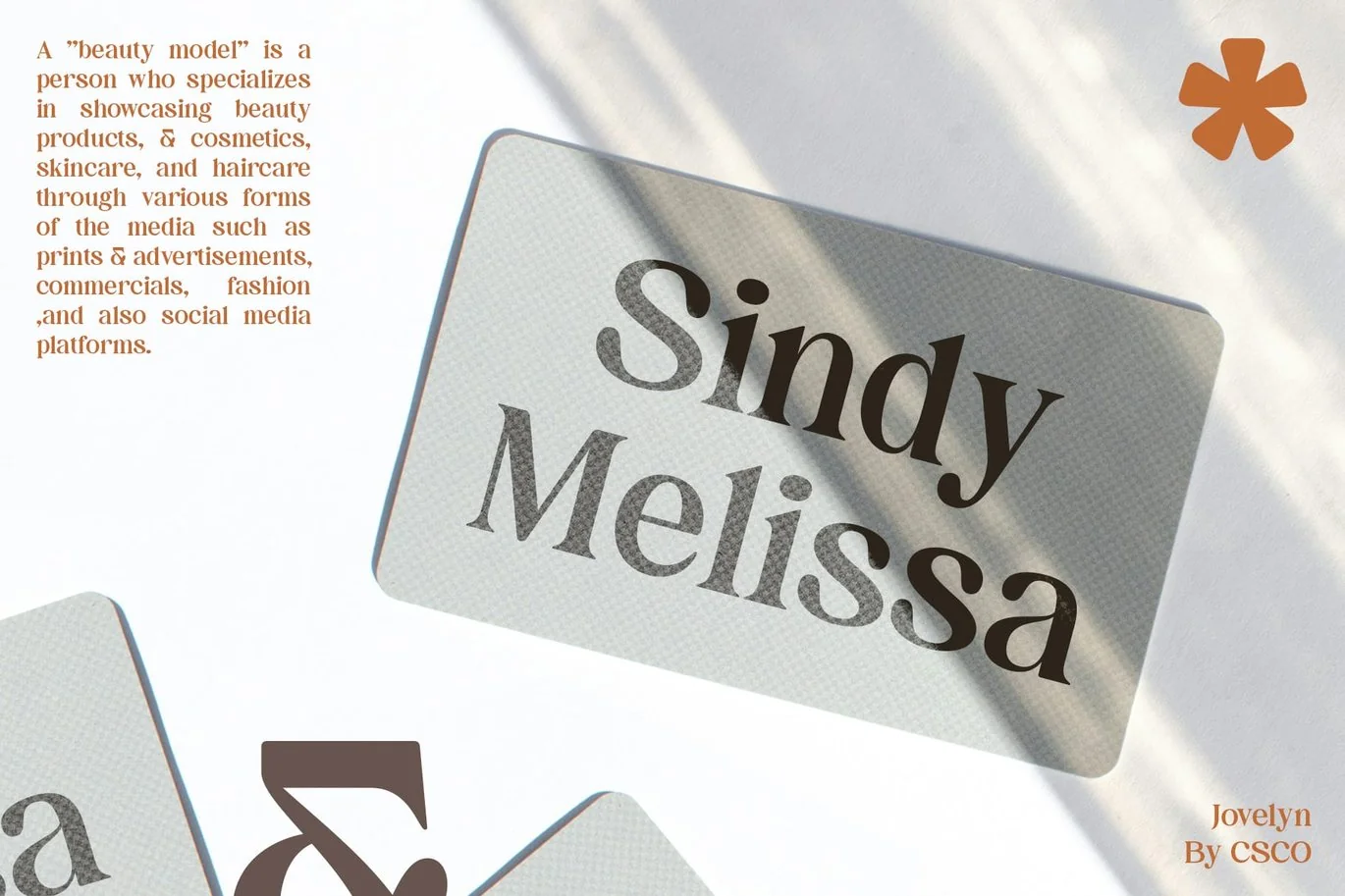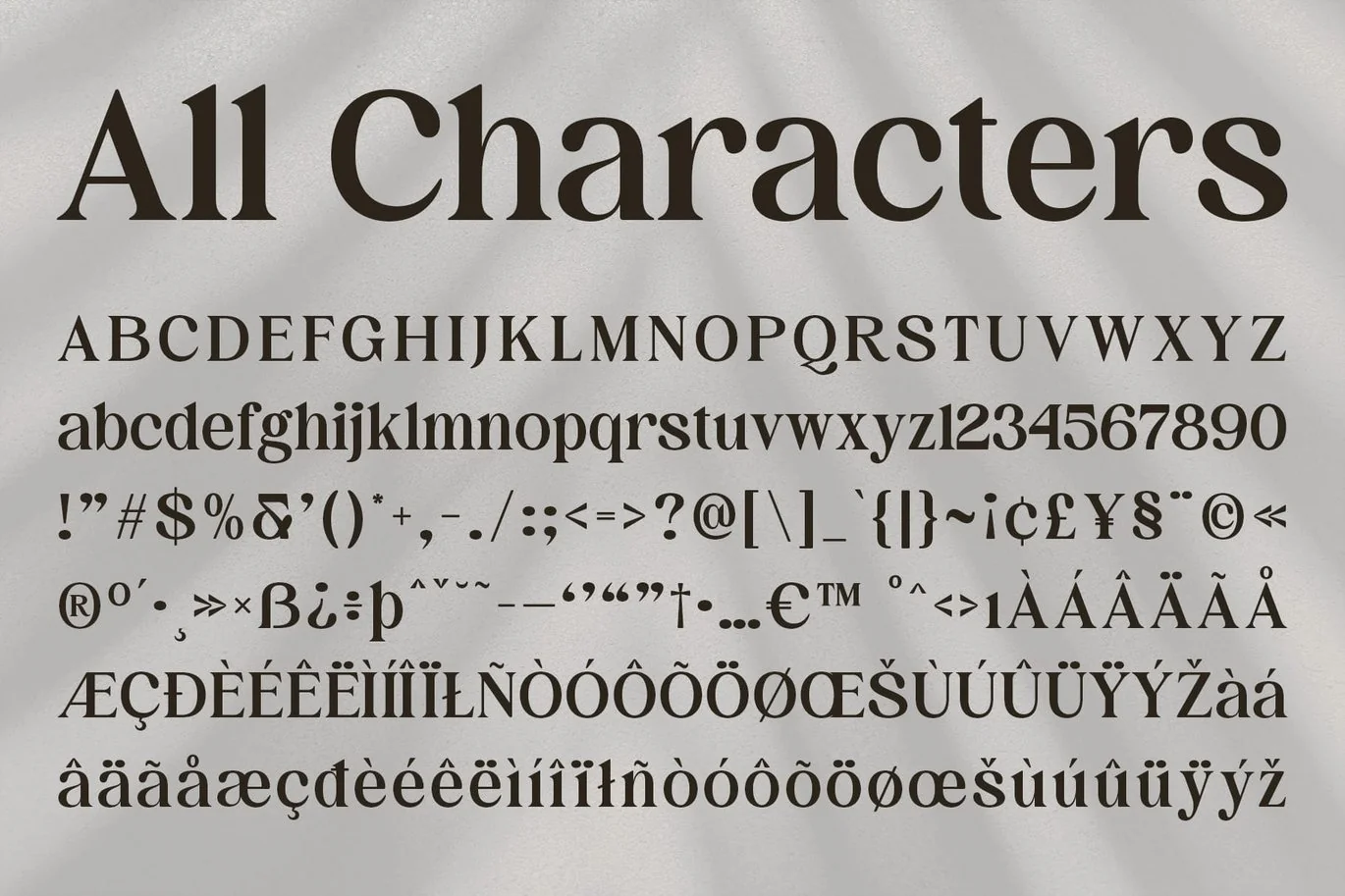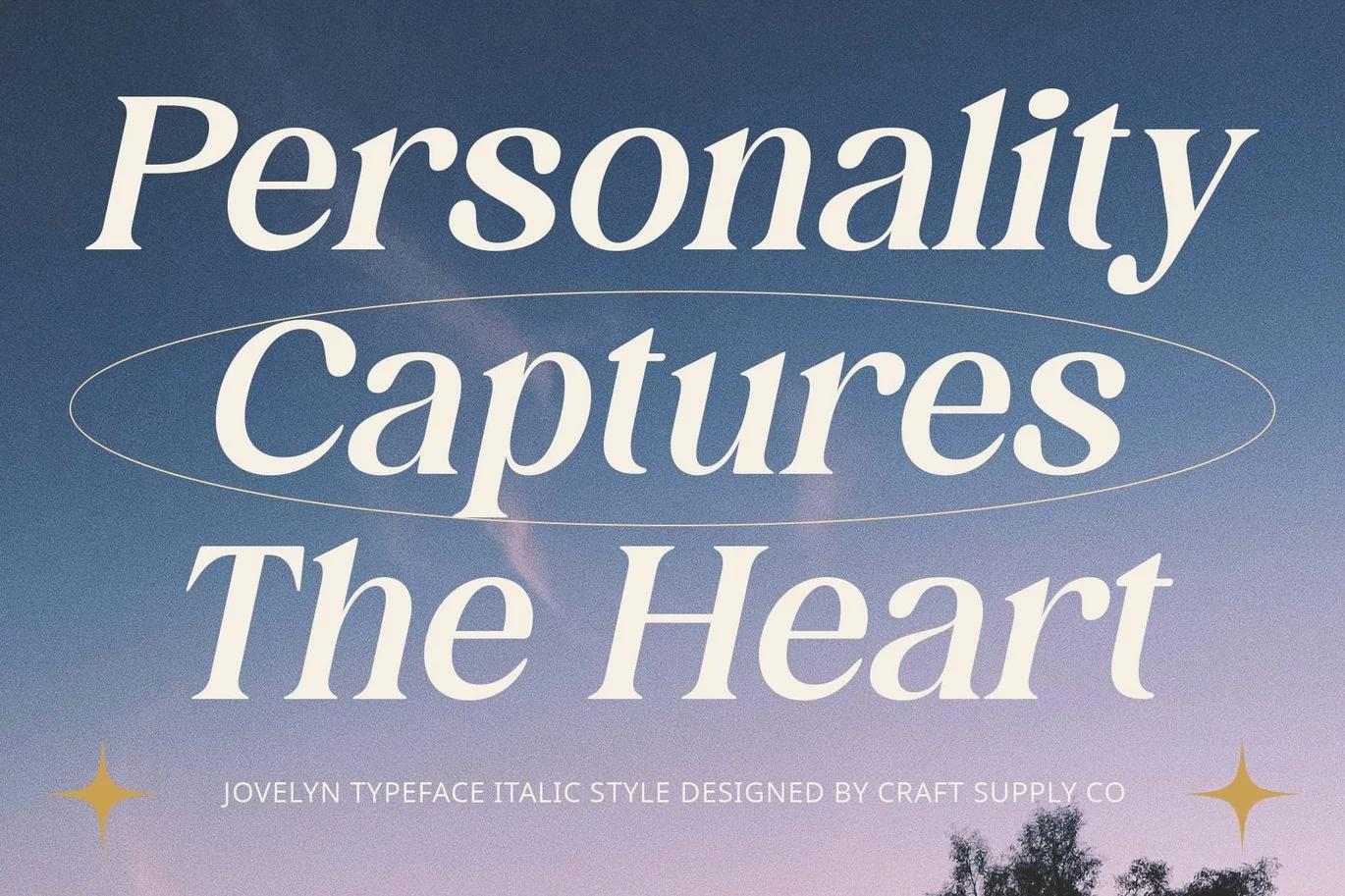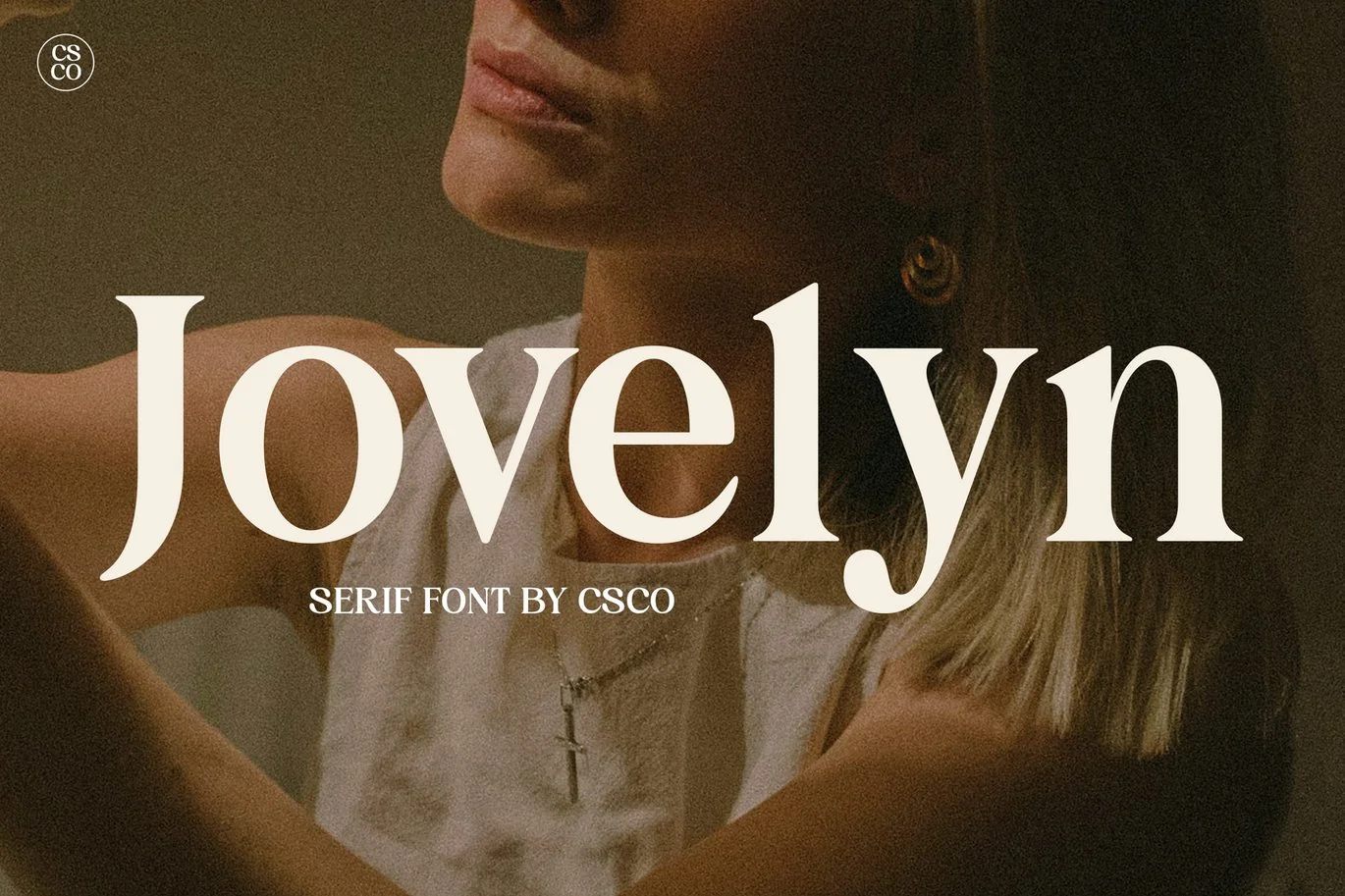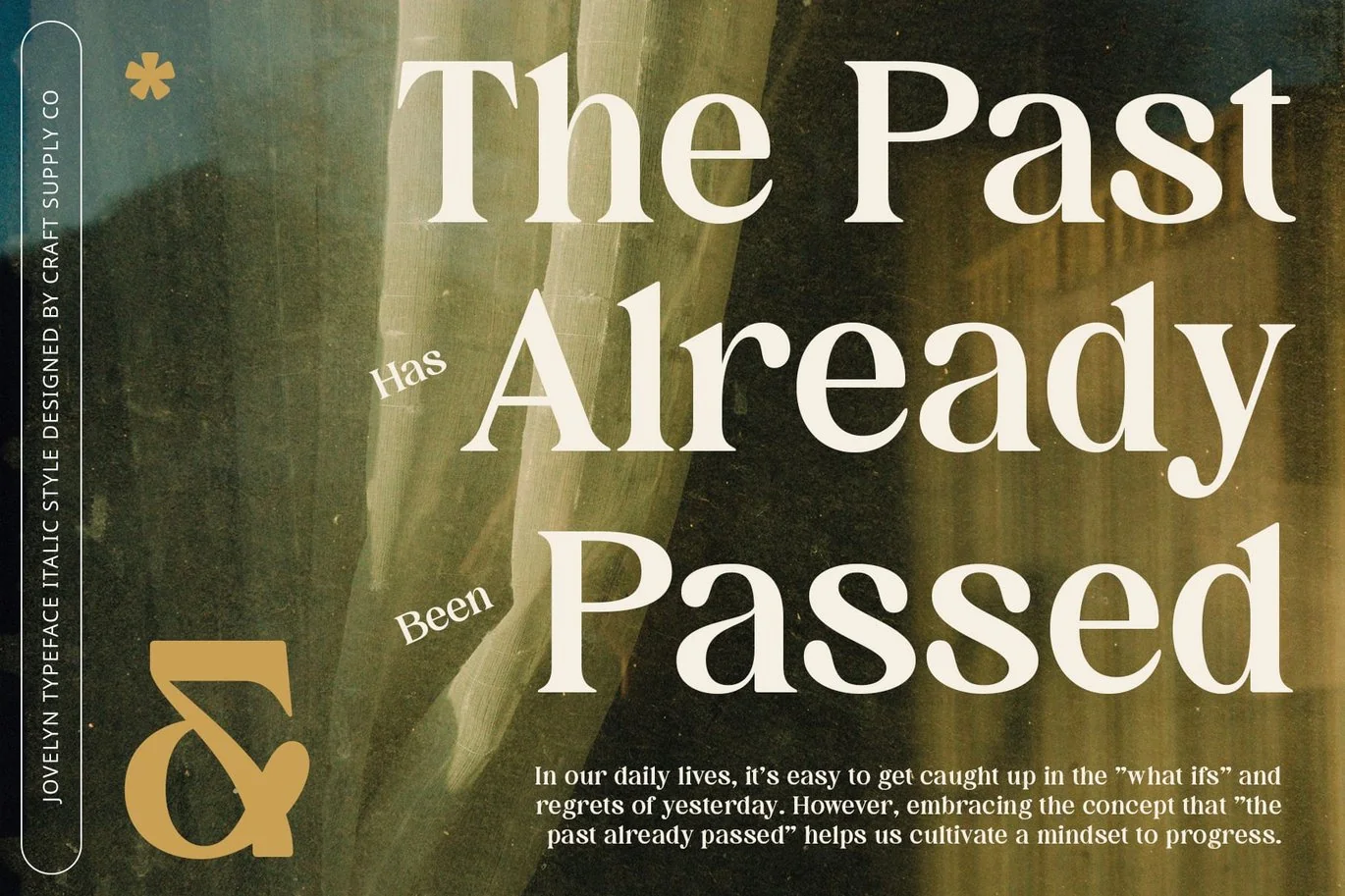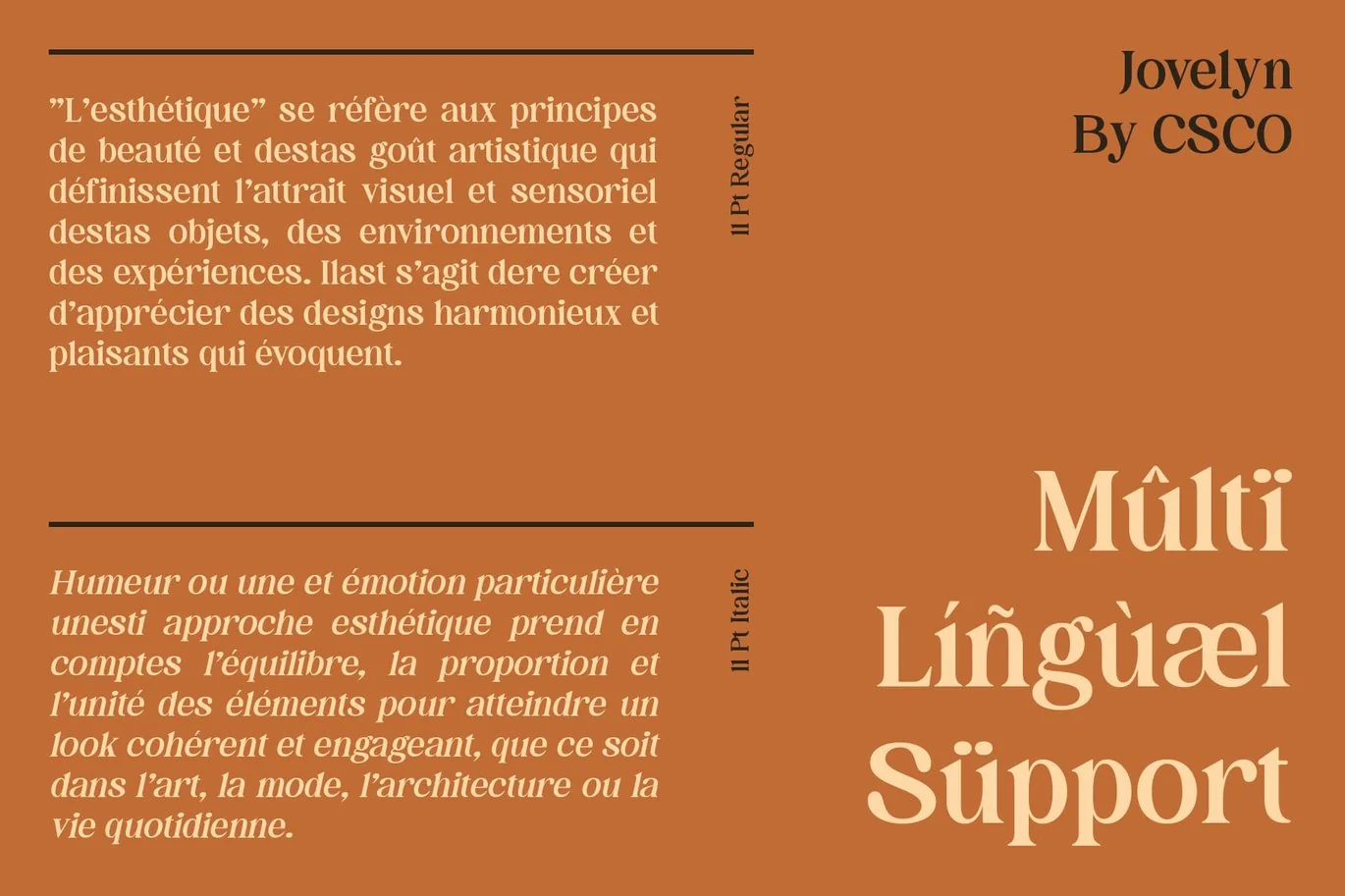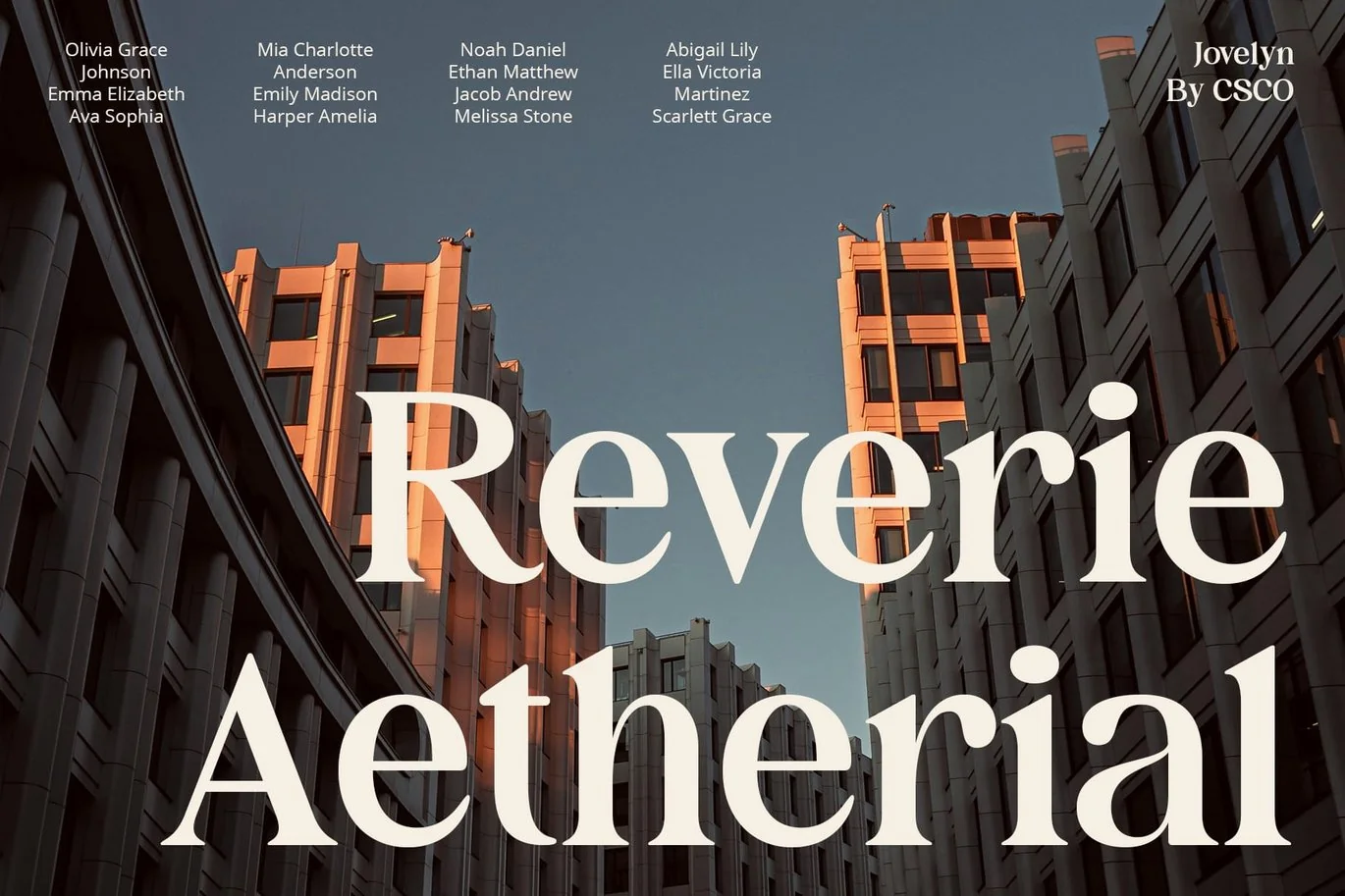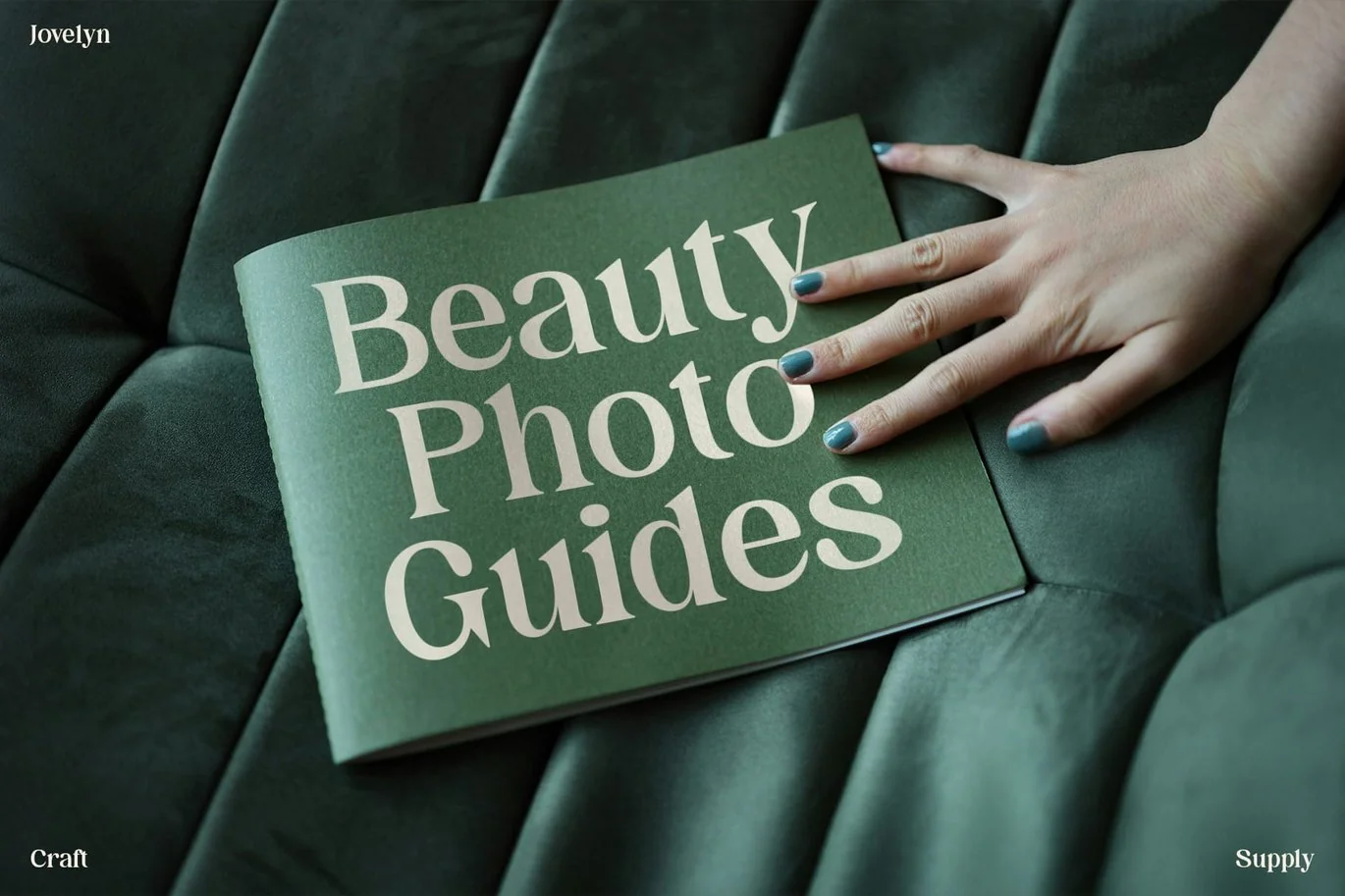
Jovelyn – Retro Font
Jovelyn – Retro Font: Where Nostalgia Meets Design
Vintage-Inspired Serif Design
Jovelyn – Retro Font is a serif font with a vintage-inspired design that evokes nostalgia. Its retro vibe adds a touch of old-school charm to any project, making it perfect for designs that aim to capture the essence of the past.
Versatile and Charming
With its versatile design, Jovelyn Font is suitable for a variety of uses, including headlines, body text, and branding. Its retro style adds a unique charm to any project, ensuring that your work stands out from the crowd.
Enhanced Retro Feel
Jovelyn Font prioritizes the retro feel, ensuring that your designs exude nostalgia. Whether used in print or digital media, this font adds a vintage touch that resonates with viewers and brings back memories of days gone by.
Perfect for Nostalgic Designs
Whether you’re working on a poster, a website, or a branding project, Jovelyn Font is the perfect choice for designs that aim to evoke nostalgia. Its timeless design ensures that your work will always have a classic and nostalgic appeal.